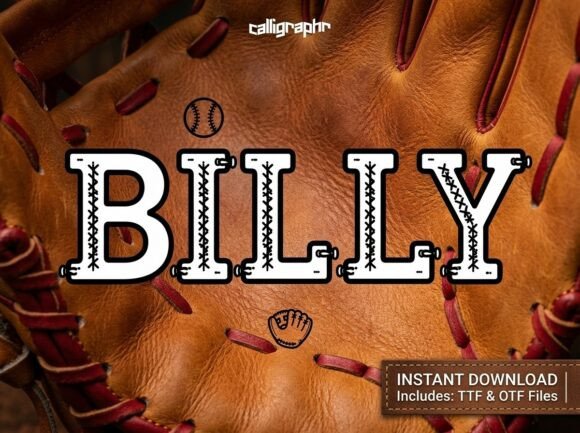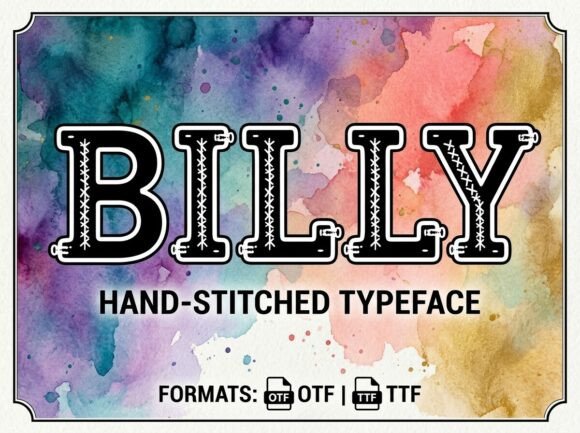
Billy Font: A Stunning Decorative Display Font for Creative Minds
Are you tired of using the same old fonts for your creative projects? Look no further than Billy Font, a unique and artistic display font that’s designed to turn heads. With its strong visual personality and decorative elements, this font is perfect for creators who want to add a touch of elegance and sophistication to their work.
What Makes Billy Font So Special?
Billy Font is a decorative display font that’s specifically designed to be the center of attention. Its unique artistic elements and strong visual personality make it perfect for bold headlines, artistic logos, and creative packaging. Whether you’re a designer, craftsperson, or simply a creative enthusiast, this font is sure to inspire you to create something truly special.
Key Features of Billy Font
• Unique Artistic Elements: Billy Font features unique artistic elements that set it apart from other fonts. Each letter is carefully crafted to be a work of art, making it perfect for high-impact headlines, logos, and decorative initials.
• Strong Visual Personality: This font has a strong visual personality that’s sure to grab attention. Its decorative elements and bold design make it perfect for creating stunning visual effects.
• Versatile: Billy Font is versatile enough for use in a variety of creative projects, from bold headlines and artistic logos to creative packaging and more.
• Professional and Polished Finish: Despite its bold and decorative design, Billy Font maintains a professional and polished finish that’s perfect for use in high-end creative projects.
⚠️ IMPORTANT NOTE BEFORE PURCHASE: Billy Font is an ALL-CAPS (Uppercase Only) display typeface. It does not include lowercase letters. It is specifically designed for high-impact headlines, logos, and decorative initials where every letter is a work of art.
Who is Billy Font For?
Billy Font is perfect for:
• Graphic Designers: If you’re a graphic designer looking for a unique and artistic font to add to your collection, Billy Font is a great choice.
• Crafters: If you’re a crafter who loves to create handmade cards, gift tags, and other paper crafts, Billy Font is a great addition to your font library.
• Small Business Owners: If you’re a small business owner looking for a bold and eye-catching font to use in your branding and marketing materials, Billy Font is a great option.
Tips for Using Billy Font
Here are a few tips for using Billy Font in your creative projects:
• Use it for Headlines: Billy Font is perfect for use in bold headlines and titles. Its decorative elements and strong visual personality make it sure to grab attention.
• Pair it with Other Fonts: Billy Font pairs well with other fonts, especially simple and clean sans-serif fonts. Try pairing it with a font like Arial or Helvetica for a bold and eye-catching look.
• Experiment with Colors: Billy Font looks great in a variety of colors, from bold and bright to subtle and muted. Experiment with different colors to find the one that works best for your project.
Billy Font is a stunning decorative display font that’s perfect for creative minds. Its unique artistic elements, strong visual personality, and versatility make it a great addition to any font library. Whether you’re a designer, crafter, or small business owner, Billy Font is sure to inspire you to create something truly special. So why wait? Purchase Billy Font today and start creating stunning visual effects that are sure to turn heads!